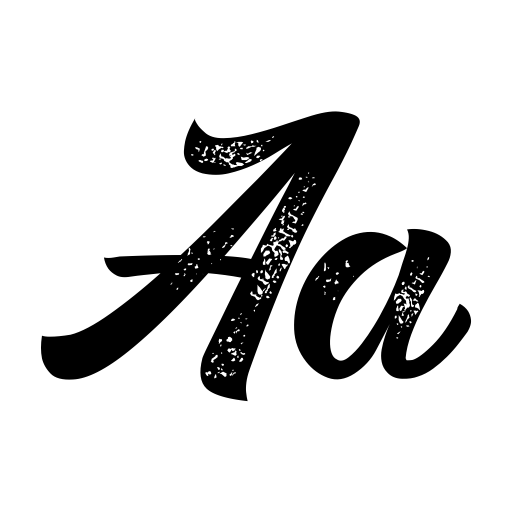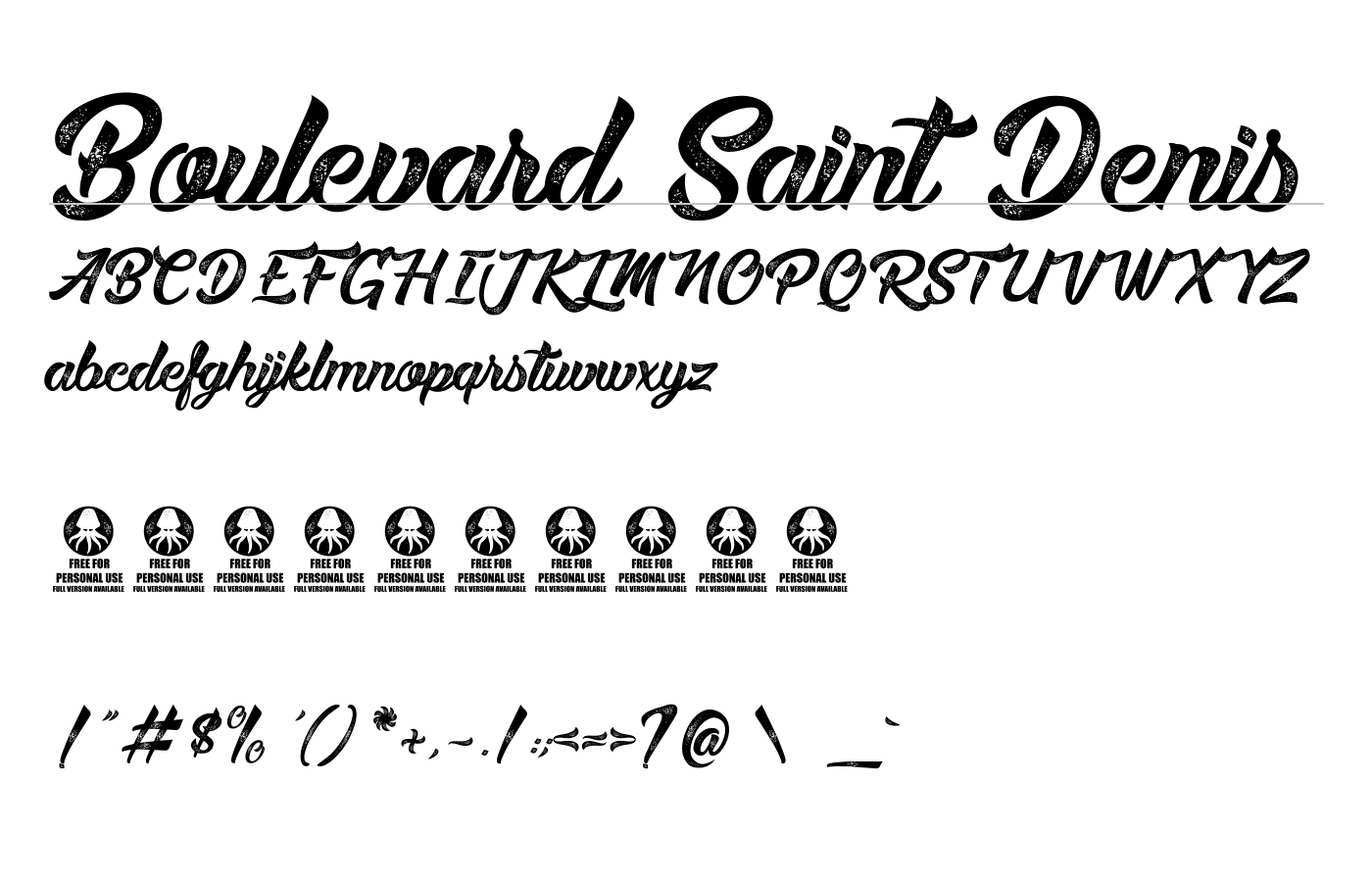
Boulevard Saint Denis is a bold, brush-script font with a vintage, hand-painted feel, featuring playful, flowing letterforms and a slight distressed texture that adds character. Its energetic style and organic curves make it perfect for branding, posters, or packaging that aim to evoke a lively, artistic, or retro vibe. This font works well in headline use where personality and charm are key to capturing attention.
Boulevard Saint Denis Font
About Boulevard Saint Denis Font
| Font family | Boulevard Saint Denis Font |
| Designer | Octotype |